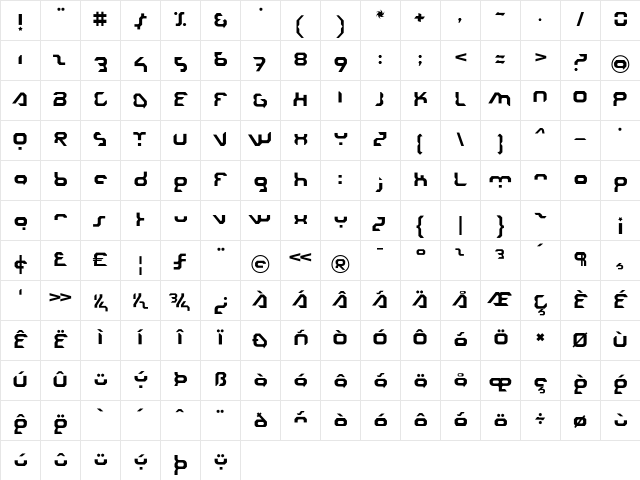
Urbanite Regular Free Font
Urbanite Regular
Design Context for Urbanite
Urbanite is a composed and adaptable typeface that performs quietly and consistently across a wide range of design contexts.